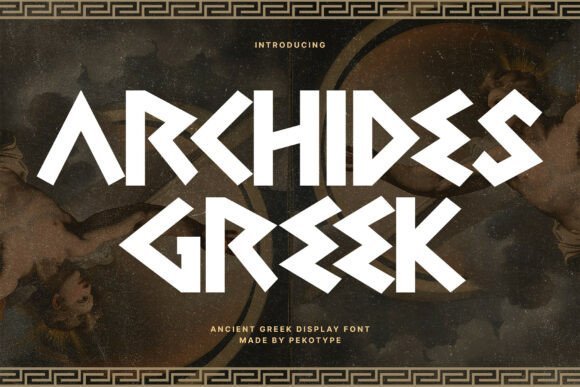
Introduction to Archides Font
Step into the grandeur of classical civilization with Archides, a bold and unique ethnic display font inspired by the legendary forms of ancient Greek lettering.
Every stroke is carefully crafted to capture the strength, mystique, and artistry of Hellenic culture, making it perfect for projects that demand a powerful visual presence With its geometric edges and distinctive shapes, Archides is ideal for branding, logo design, game titles, movie posters, promotional materials, and social media content.
Key Features of Archides Font